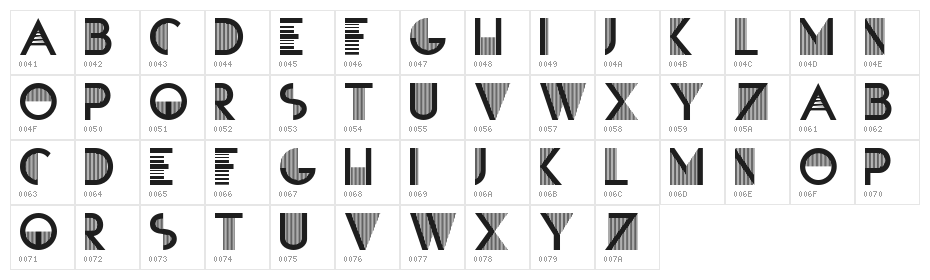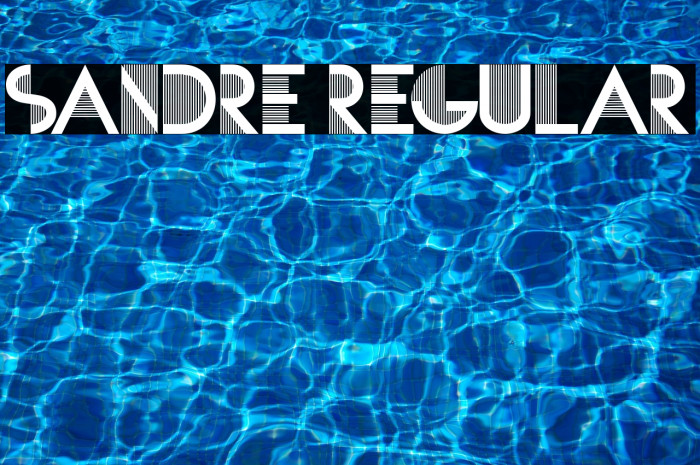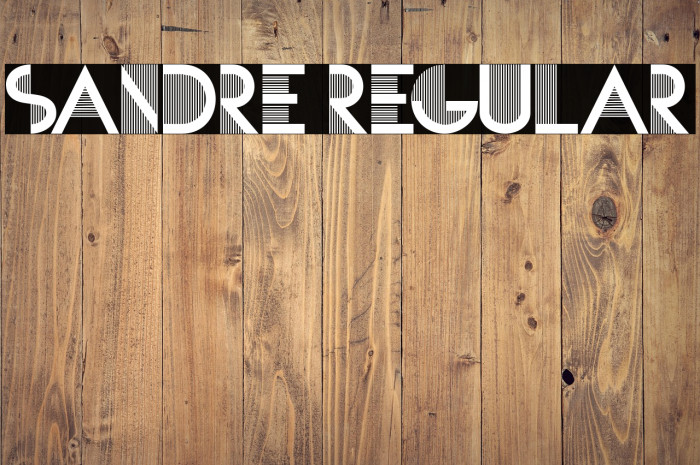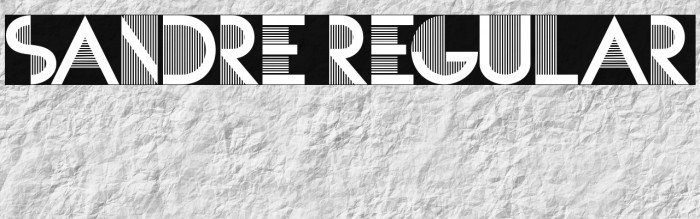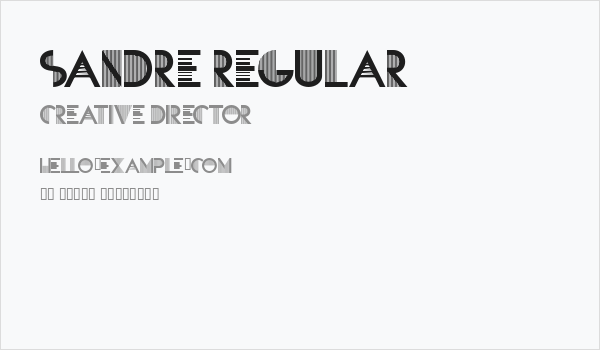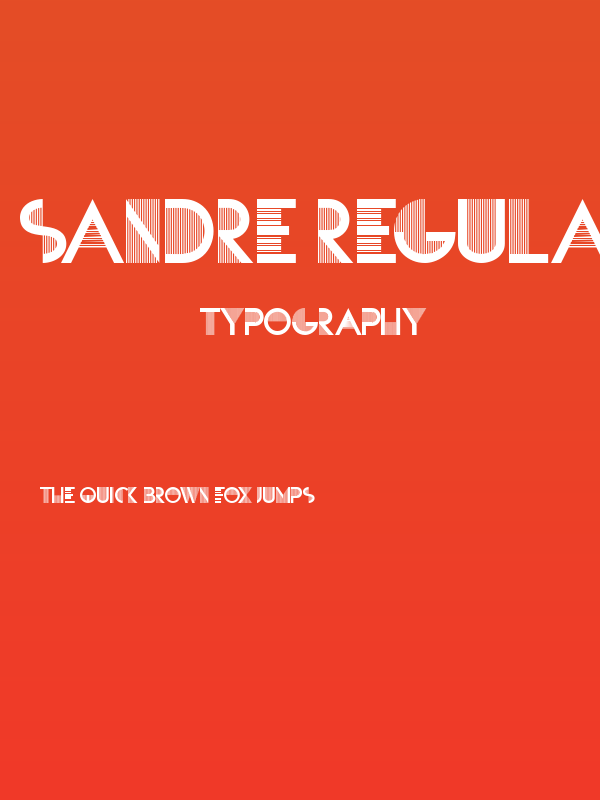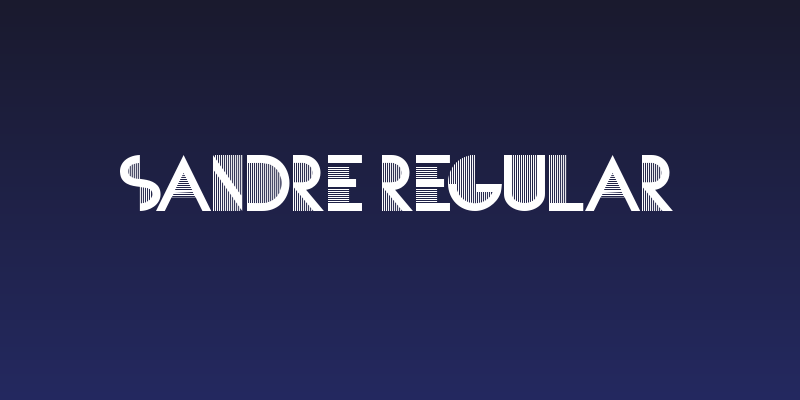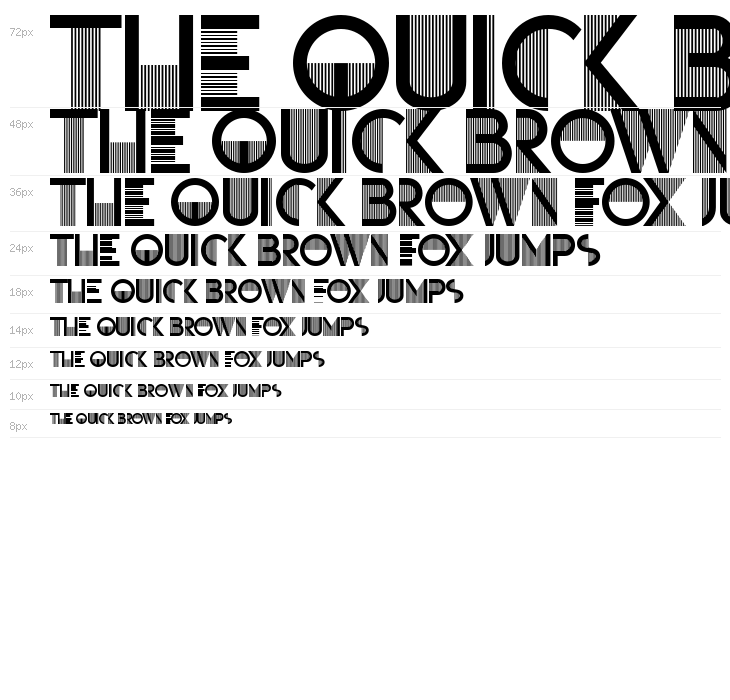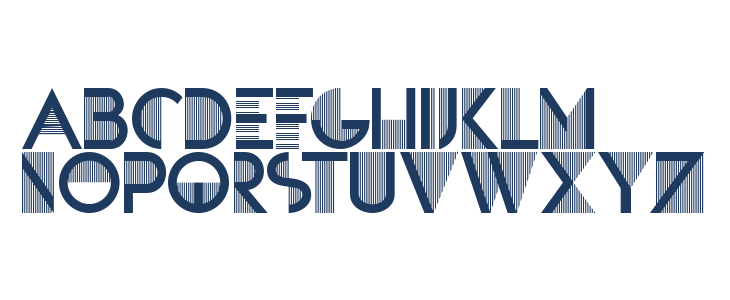
SANDRE Regular Font
SANDRE Regular Description
This font features a unique and striking design characterized by its use of horizontal lines and bold geometric shapes. Each letter is crafted with a combination of solid and striped sections, creating a visually dynamic effect. The uppercase letters are particularly bold, with strong vertical and horizontal lines that give them a modern and futuristic appearance. The font's design is consistent across all characters, maintaining a cohesive look that is both artistic and functional. The use of lines within the letters adds a sense of movement and depth, making it suitable for eye-catching designs.
| Proposed Projects | Ideal for branding, posters, and modern digital designs where a bold statement is needed. |